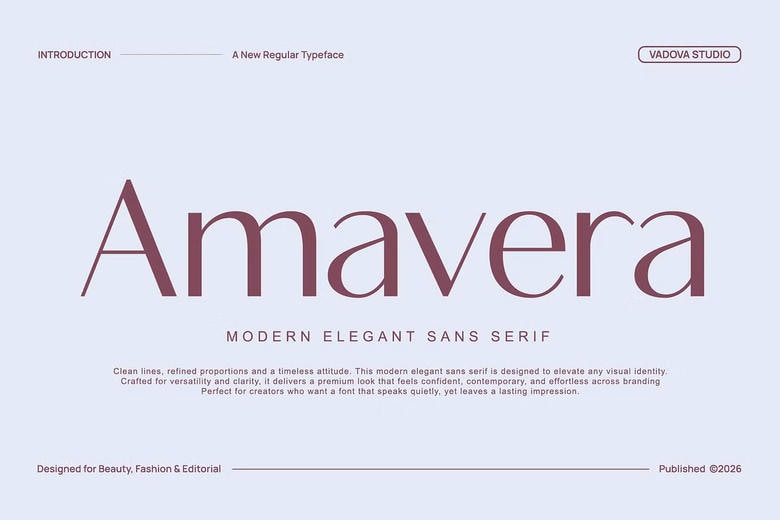
Amavera Font
Amavera is a contemporary classy sans serif typeface with clean lines, perfect proportions, and a classic touch. Designed to be both minimal and luxurious, it offers a confident, albeit discreet appearance in a large spectrum of design uses. Amavera should be used in branding, editorial designs, fashion programs, beauty boxes, and modern visual identities. Its contemporary format is clear and versatile without losing its high-quality, elegant sound.
Amavera can be of much use to fashion, beauty, lifestyle, and editorial designers. Its sleek but contemporary style is ideal in brand identity systems, magazine layouts, web page headers, social media campaigns and high quality packages. The font works well in not only large headlines but also clean supporting texts and is applicable in both print and digital design works.